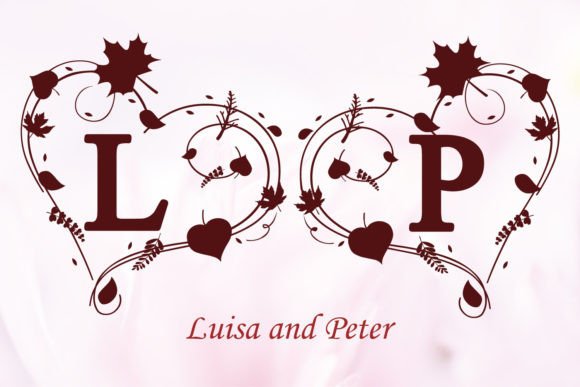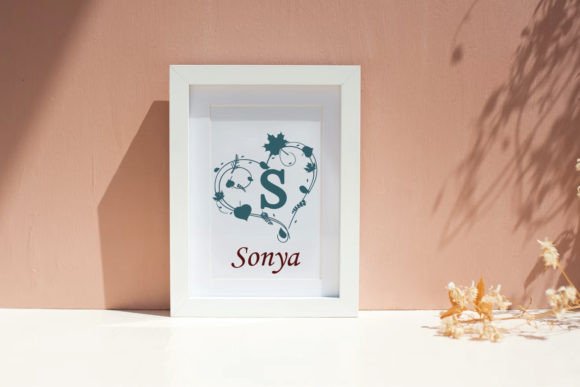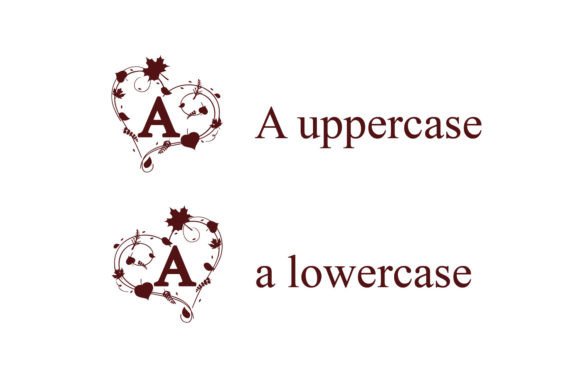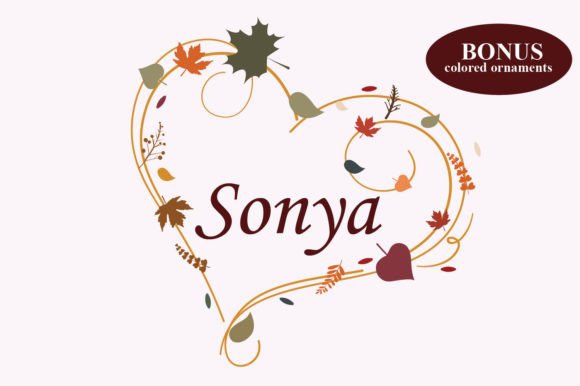
Fall in Love with the Perfect Font: Elevate Your Designs with Fall in Love Font
As the seasons change and fall arrives, designers and crafters are on the lookout for the perfect font to add a touch of warmth and coziness to their creations. If you’re searching for a font that embodies the spirit of fall, look no further than the Fall in Love Font. This beautiful and remarkably delicate font is sure to elevate any design and make it stand out.
What is Fall in Love Font?
Fall in Love Font is a decorative font that boasts an amazing look for fall designs. Its delicate and stylish appearance makes it perfect for a variety of projects, from autumn-themed invitations and greeting cards to seasonal branding and packaging. The font’s unique charm is sure to capture the essence of fall and add a touch of elegance to any creation.
Key Features of Fall in Love Font
- Delicate and Stylish: Fall in Love Font features a remarkably delicate and stylish design that is sure to impress.
- Perfect for Fall Designs: The font’s autumnal charm makes it ideal for fall-themed projects, from harvest-inspired branding to Thanksgiving invitations.
- Elegant and Refined: The font’s elegant appearance adds a touch of sophistication to any design, making it perfect for high-end branding and luxury packaging.
- Versatile: Fall in Love Font can be used for a variety of projects, from digital designs to print materials.
Why Choose Fall in Love Font?
With so many fonts available, why choose Fall in Love Font for your fall designs? Here are just a few reasons:
- Unique and Eye-Catching: The font’s unique design ensures that your creations will stand out from the crowd and grab attention.
- Easy to Read: Despite its delicate appearance, Fall in Love Font is easy to read, making it perfect for body text and headlines.
- Customizable: The font can be customized to fit your brand’s style, from adjusting the size and color to adding effects and textures.
- Time-Saving: With Fall in Love Font, you can create stunning fall designs in no time, saving you time and effort.
How to Use Fall in Love Font in Your Designs
Using Fall in Love Font in your designs is easy. Here are a few tips to get you started:
- Pair it with Other Fonts: Combine Fall in Love Font with other fonts to create a unique and visually appealing design.
- Use it for Headlines and Titles: Fall in Love Font is perfect for headlines and titles, adding a touch of elegance and sophistication to your design.
- Add Effects and Textures: Experiment with effects and textures to give your design a unique and eye-catching look.
If you’re looking for a font that will elevate your fall designs and add a touch of elegance and sophistication, look no further than Fall in Love Font. With its delicate and stylish appearance, this font is sure to capture the essence of fall and make your creations stand out. Whether you’re a designer, crafter, or DIY enthusiast, Fall in Love Font is the perfect choice for any fall project.